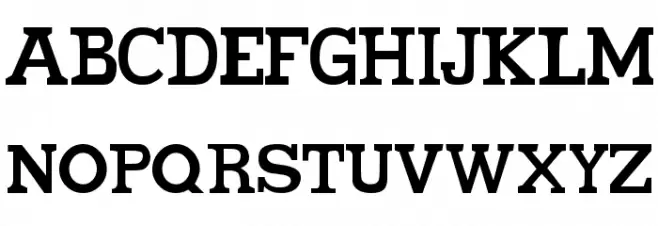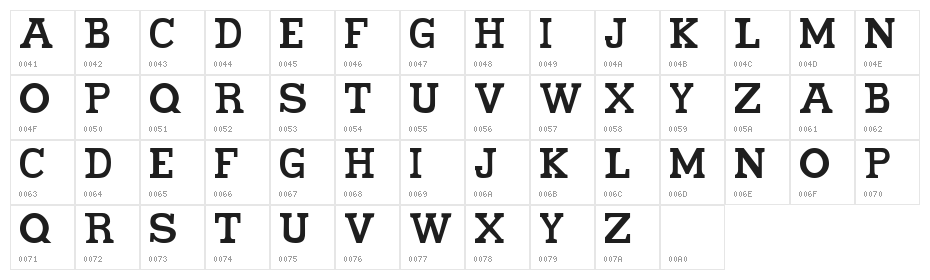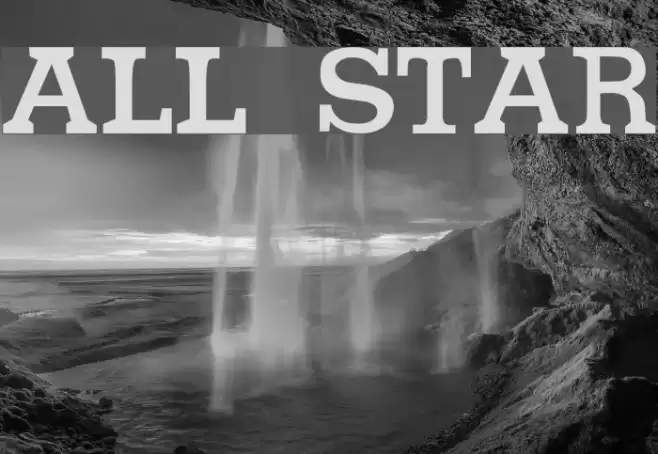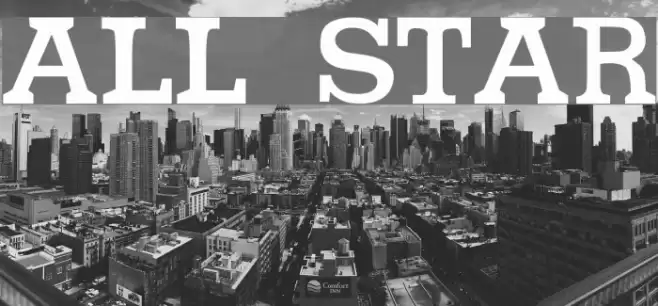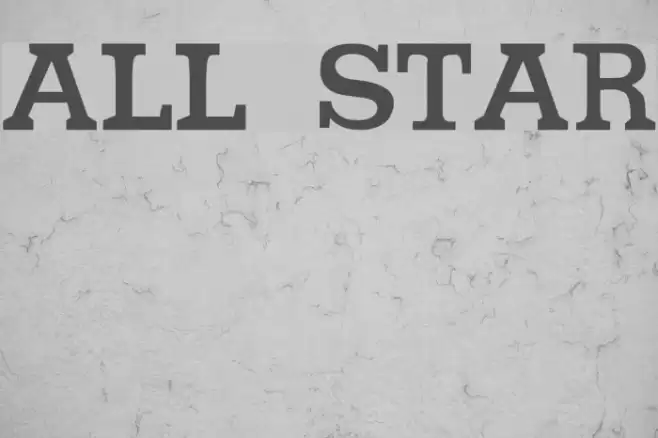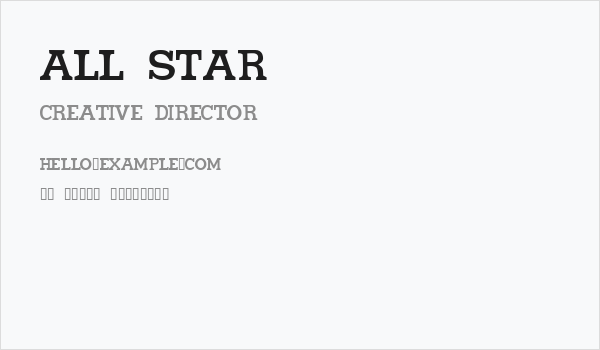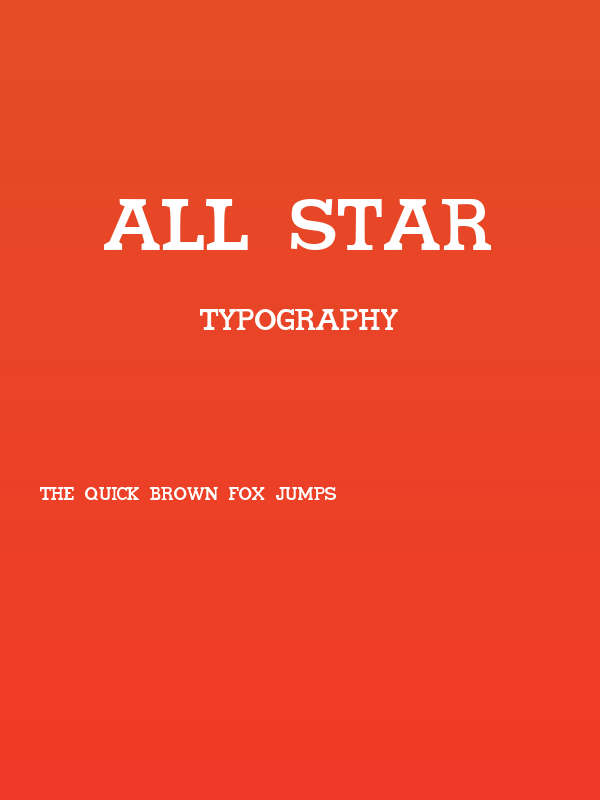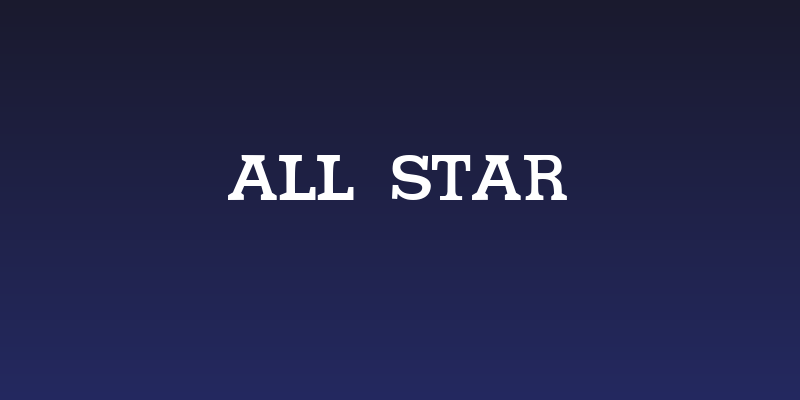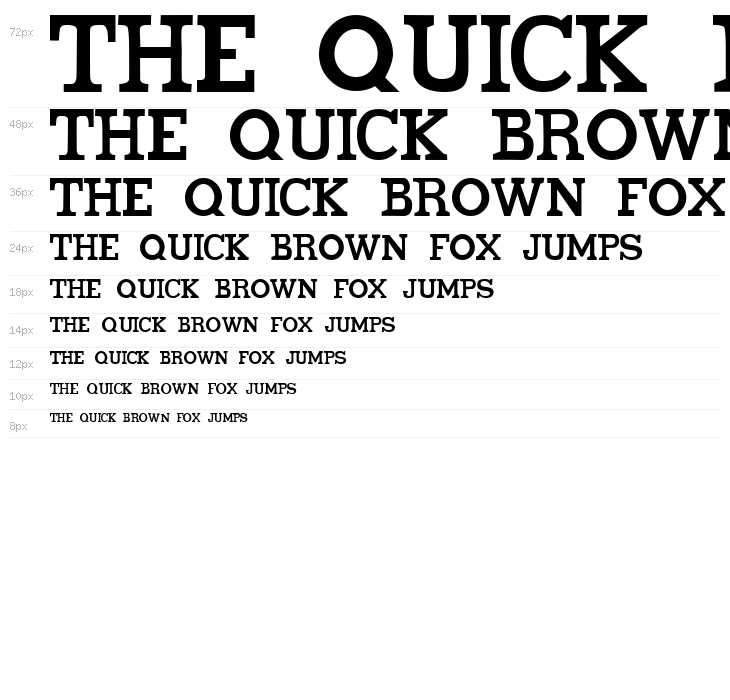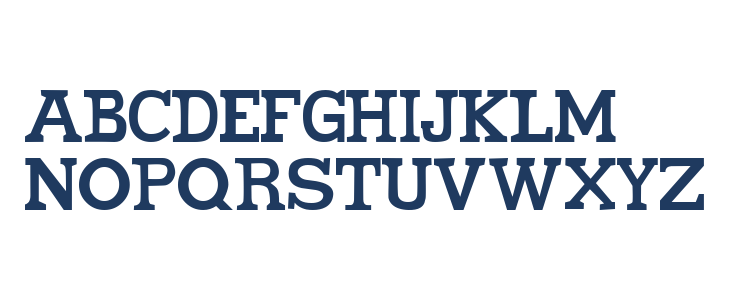
All star Font
All star Description
This font features a bold and robust slab serif style, characterized by thick, block-like serifs that give it a strong and authoritative presence. The uppercase letters are uniformly designed with a consistent stroke width, providing a sense of stability and balance. The font's geometric structure is evident in its symmetrical and evenly spaced characters, making it highly legible and suitable for various design applications. Its classic yet modern appeal makes it versatile for both traditional and contemporary projects. The font's boldness ensures it stands out, making it ideal for headlines and titles.
| Proposed Projects | Ideal for branding, advertising, posters, and editorial design where a strong, impactful presence is needed. |